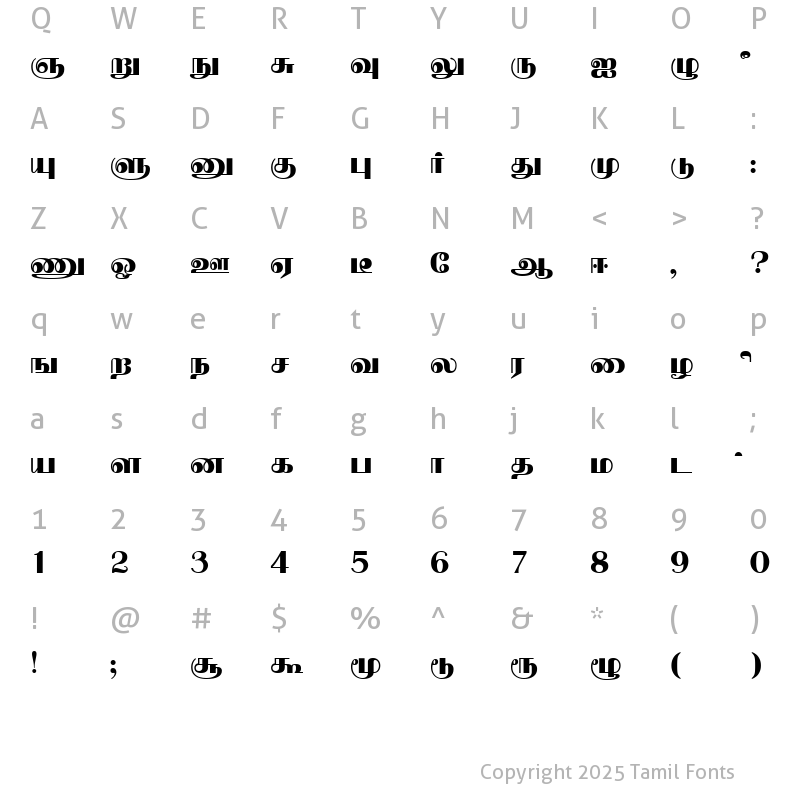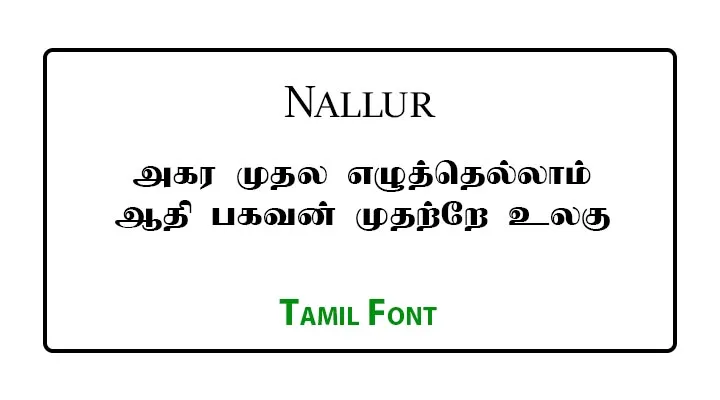
Nallur Tamil Font Free Download. Nallur is one of the Tamil Regular Font. Specially used in publications. Here you can download Font and Keyboard Layout for Free. This font is widely used by Tamil Nadu and Sri Lankan Tamil Peoples. The following font was design and generated by by Fontograpgher 3.5.